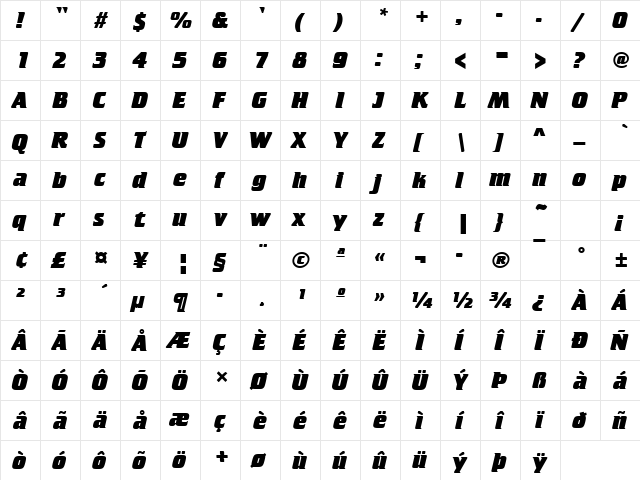
URWCrisiumTExtBol Regular
Design Context for URWCrisiumTExtBol Typeface
URWCrisiumTExtBol takes a measured approach to typography — its balanced proportions and neutral character make it a reliable workhorse for both digital and print work.
Pro Tip: Use URWCrisiumTExtBol in both headline and body roles to test its range before committing to a single application.